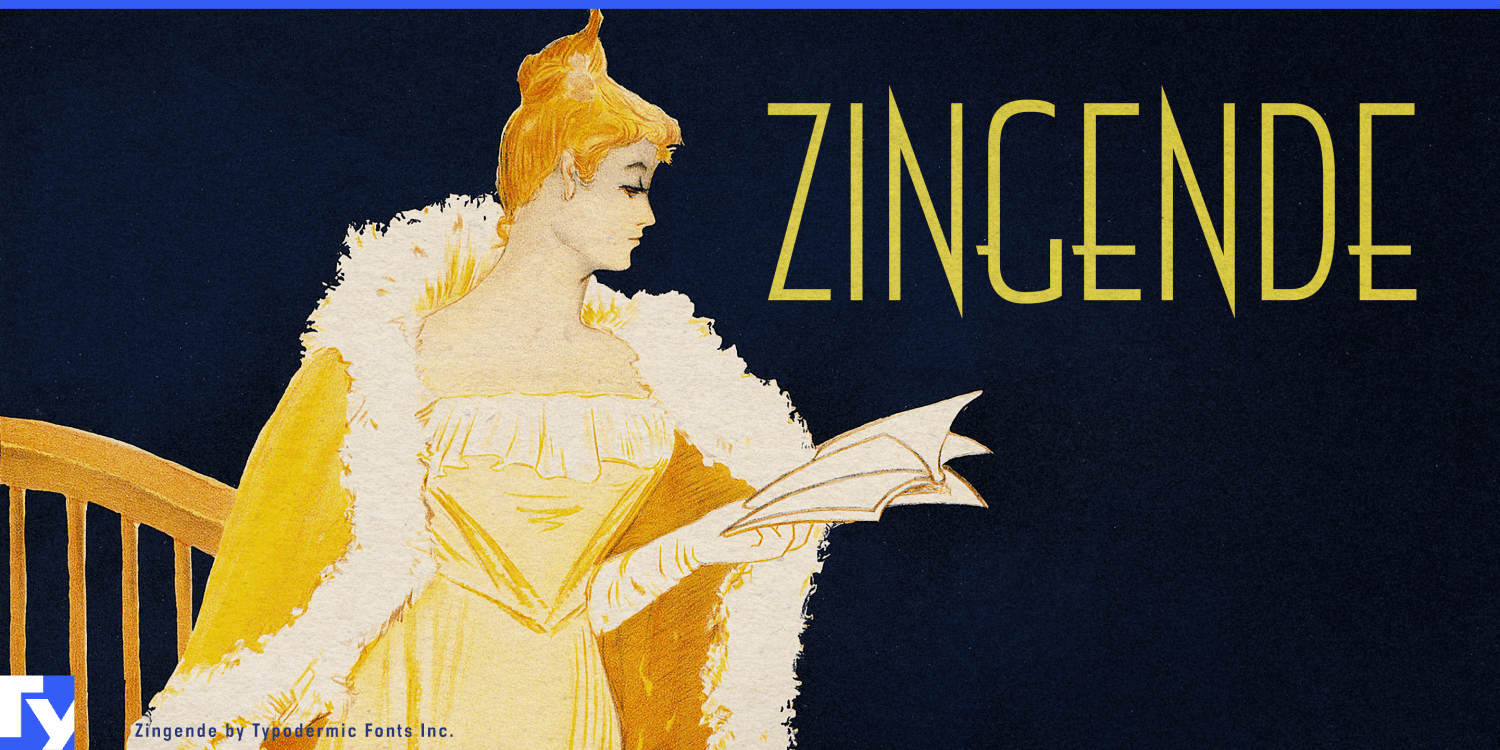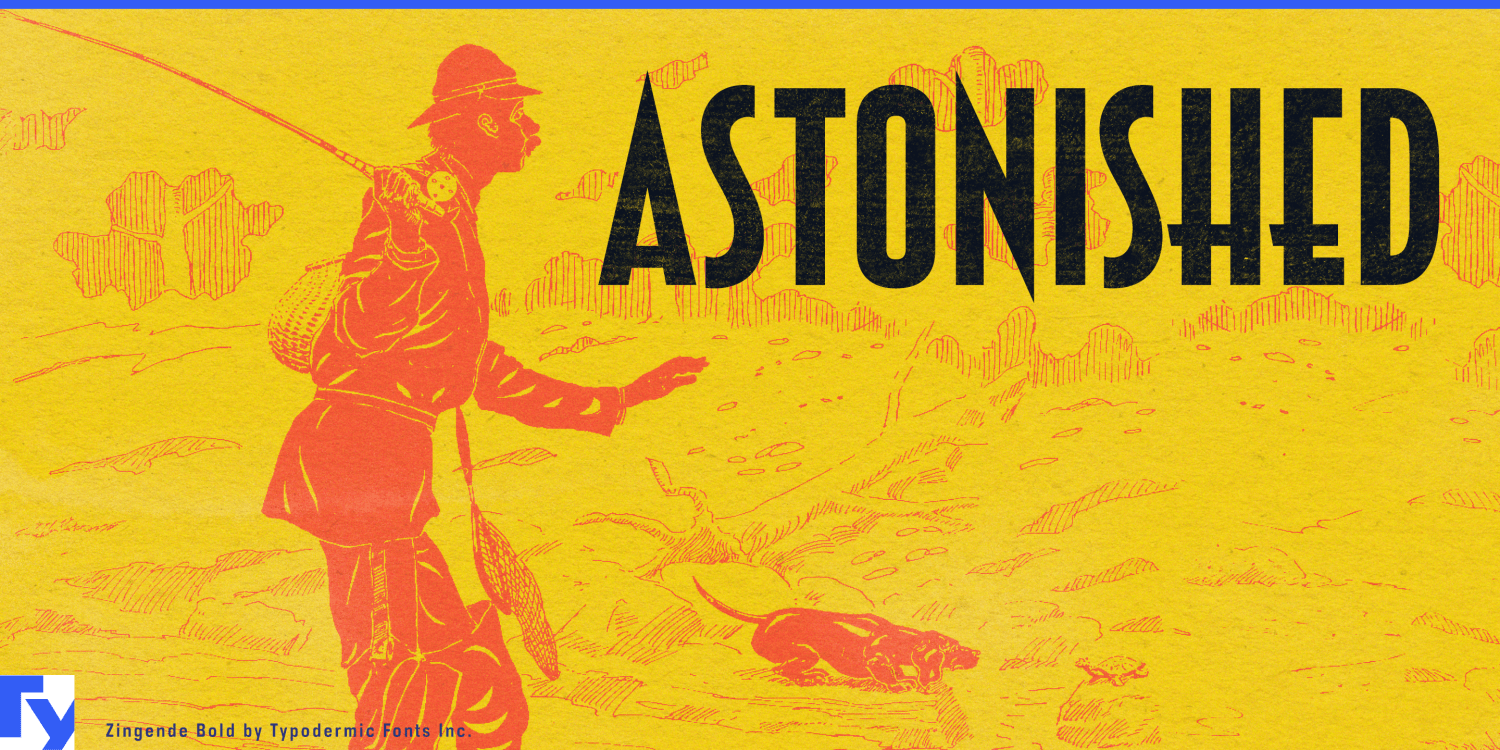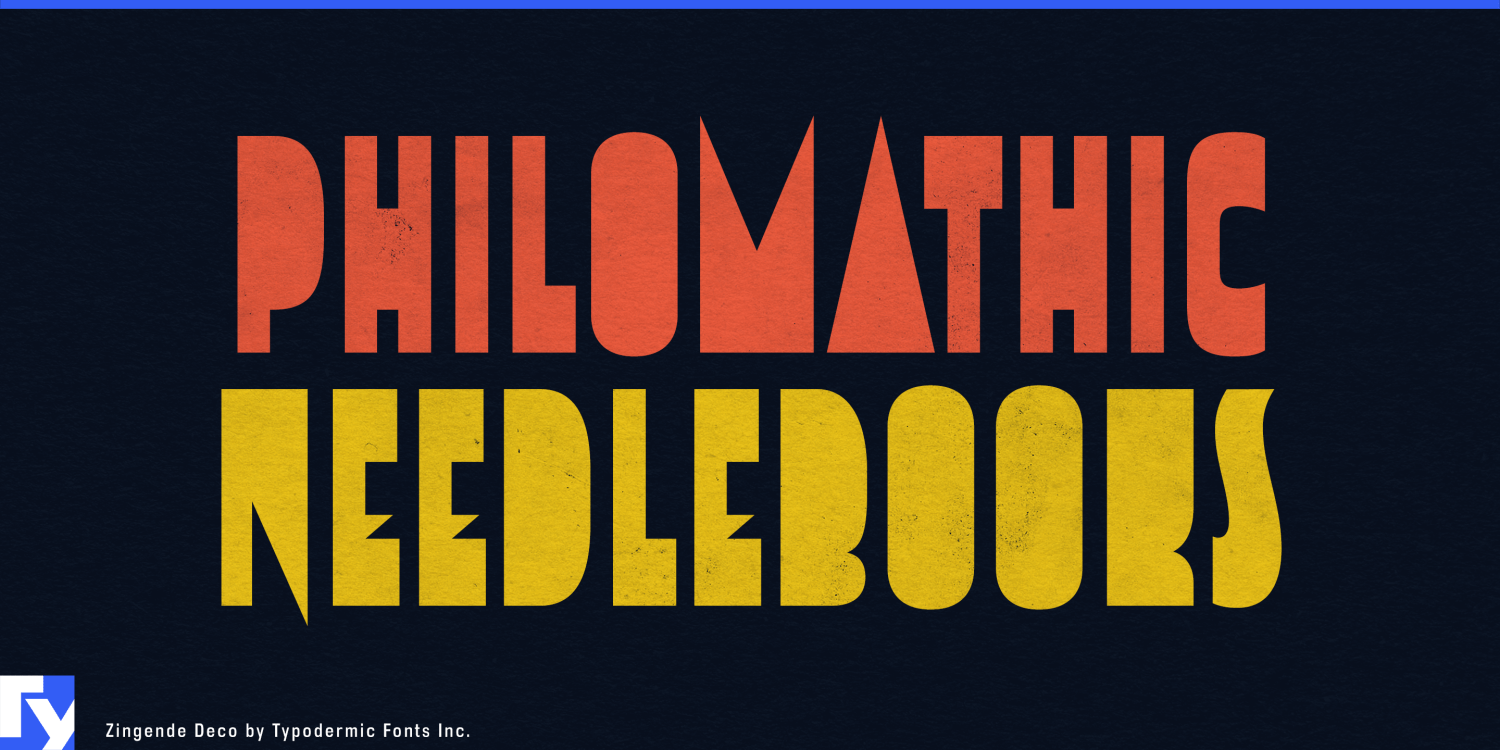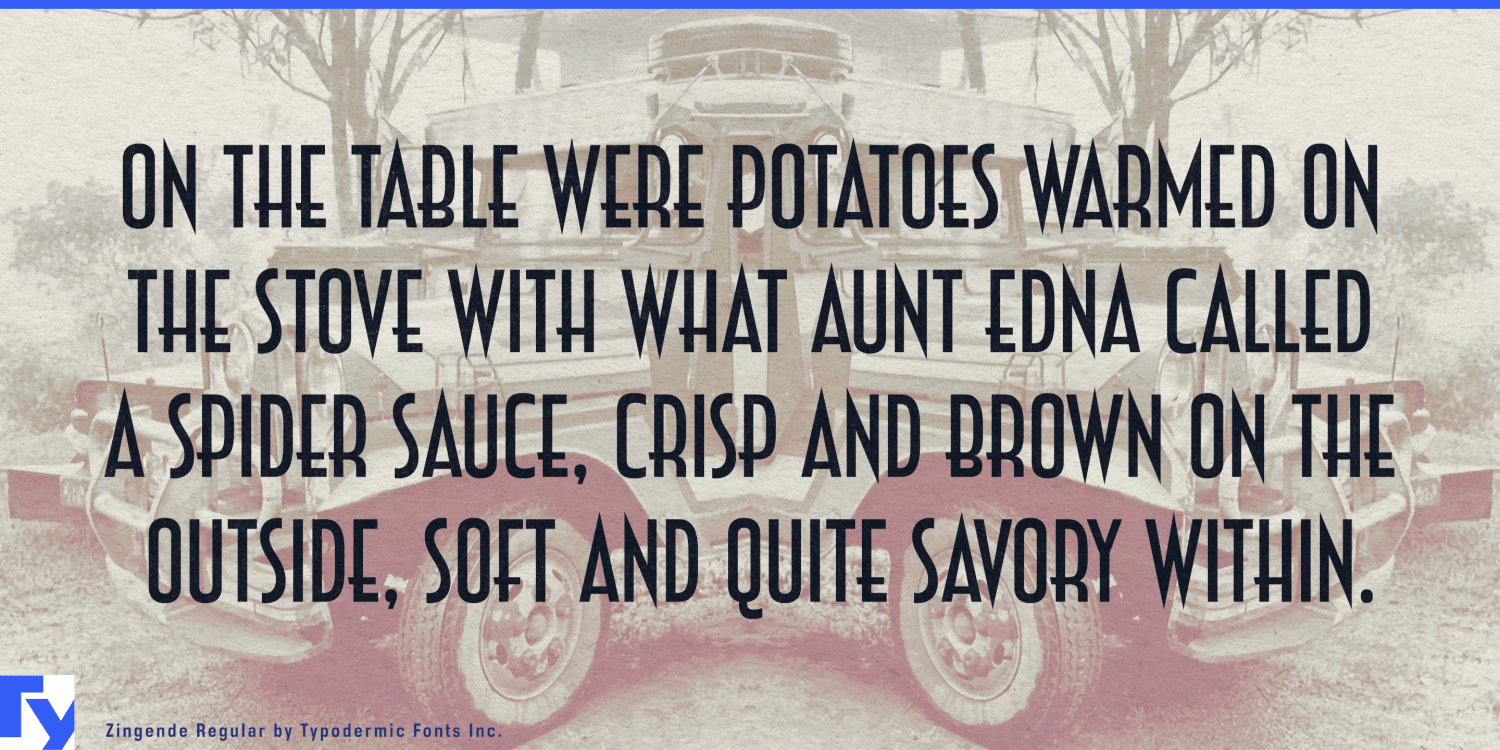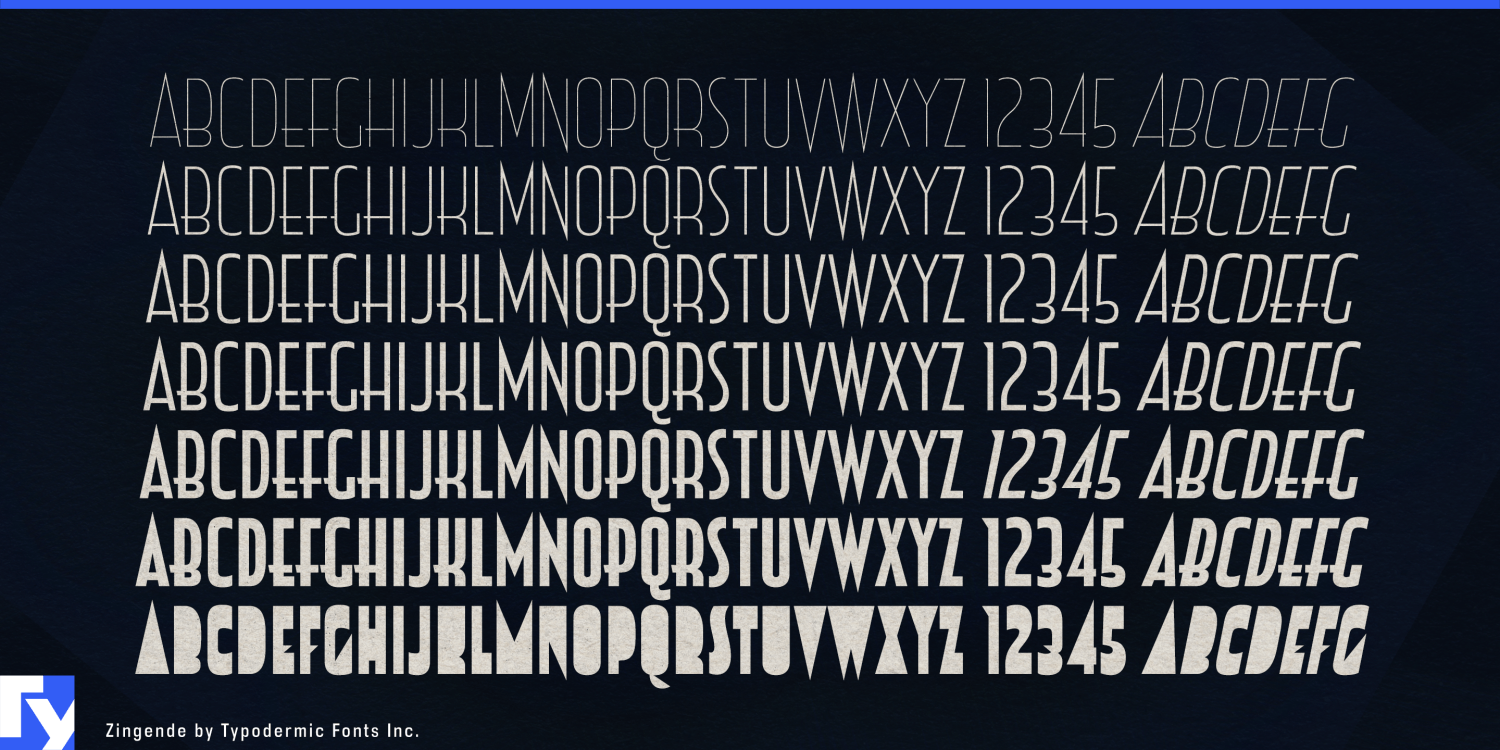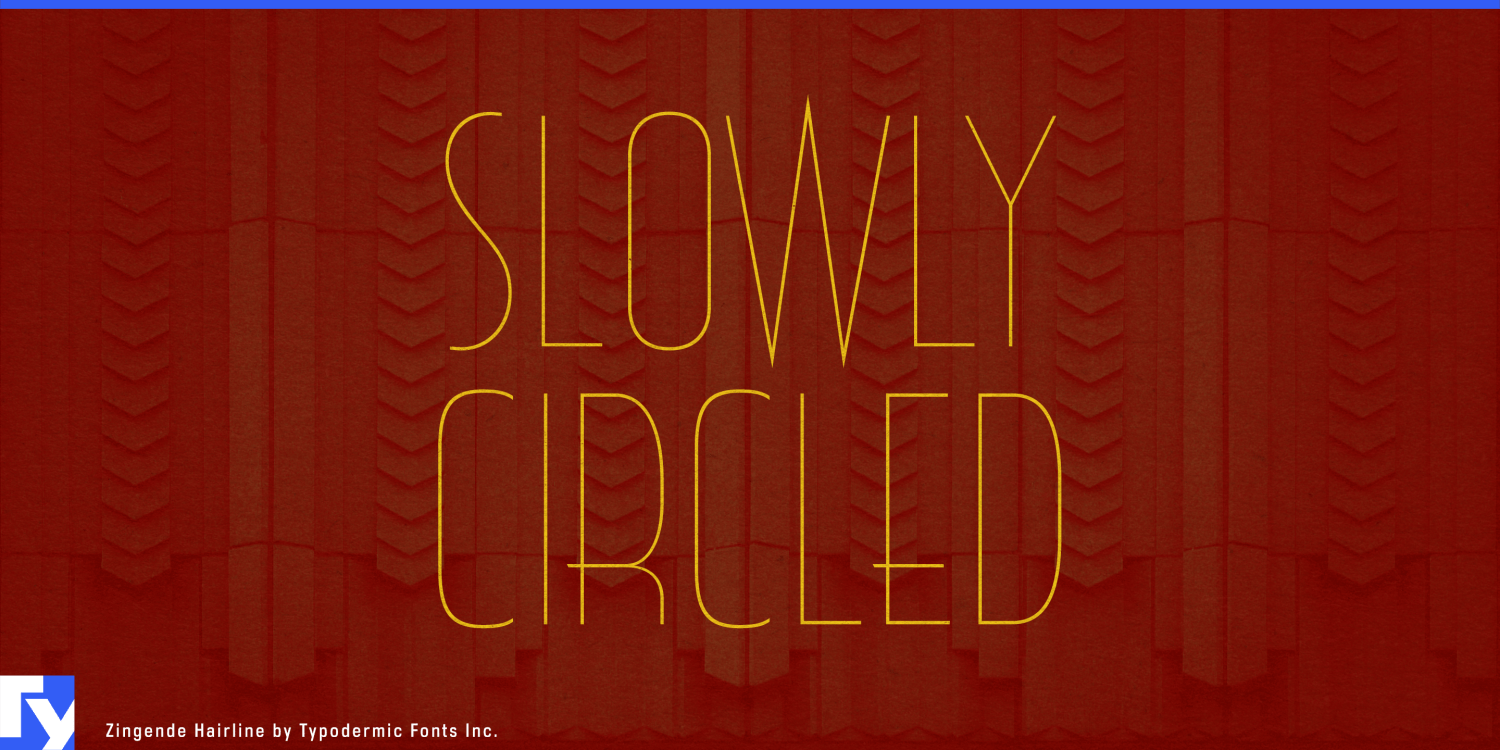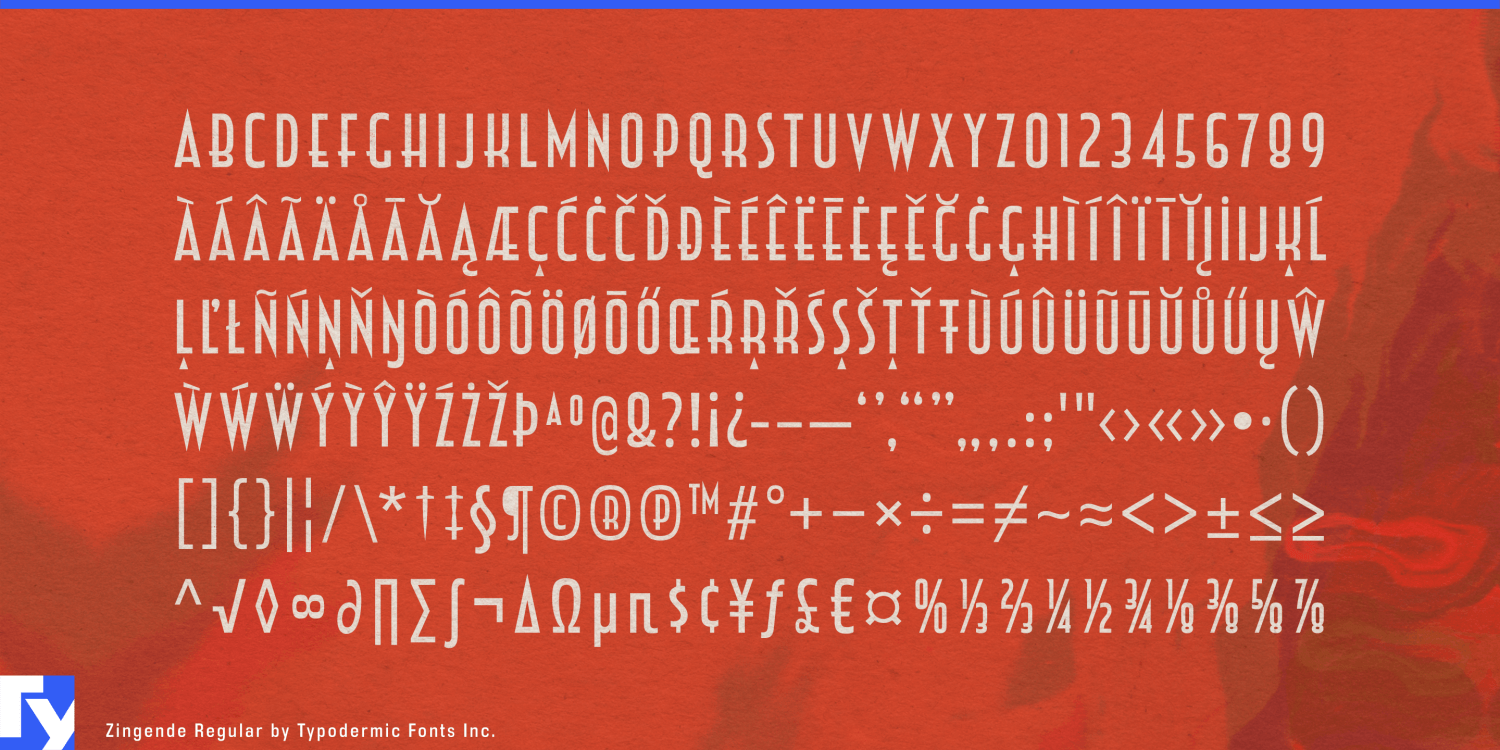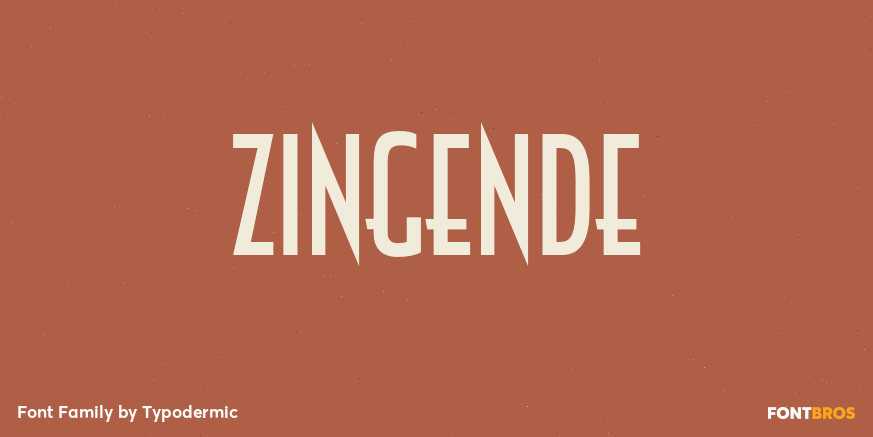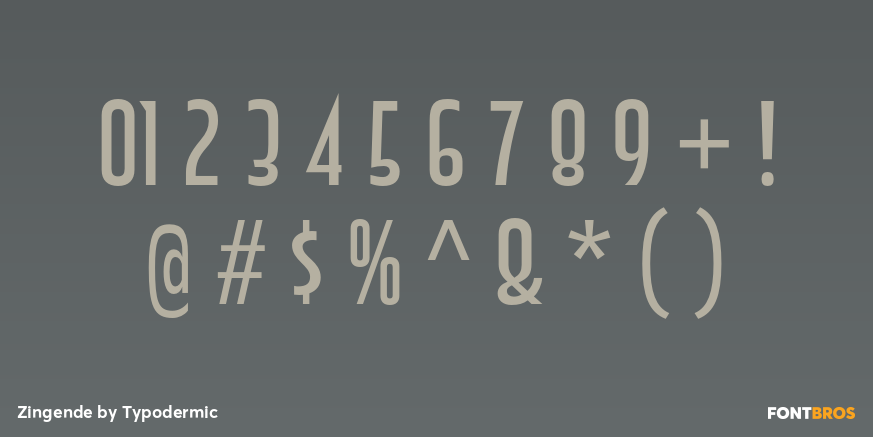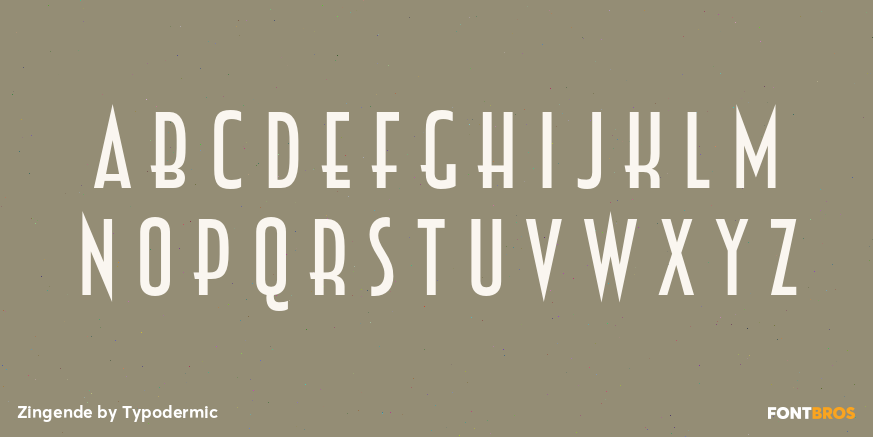
Zingende
Zingende is Art Deco for projects that cannot afford to look like Art Deco theme night.
Its tall, narrow forms retain the sharp geometry and vertical rhythm associated with 1920s and 1930s display lettering, but the strokes are essentially monolinear rather than dramatically thick and thin. That gives Zingende a period connection without the theatricality that can make conventional Deco typography feel like costume.
Restored Art Deco hotels and adaptive-reuse hospitality are a natural fit. A hotel in a 1930s tower, a cocktail bar inside a former cinema or a contemporary property built around Deco interiors needs typography for far more than a logo. Zingende can handle building names, restaurant and bar names, elevator-lobby headings, room categories, menu sections and event graphics while remaining restrained enough to coexist with original stonework, metalwork and furnishings.
Luxury rail offers a related setting. Sleeper-train identities, carriage names, route titles, dining-car graphics, menus, onboard publications and campaign headlines can reference the visual language of interwar travel without becoming replicas of old railway posters. The oblique styles add movement while preserving the same narrow construction.
Art Deco residential and commercial property creates another strong application. Restored towers, former banks converted to residences and new developments that borrow stepped forms, metalwork and geometric ornament can use Zingende for property names, amenity names, sales-gallery graphics and large-scale architectural signage. Its vertical emphasis works particularly well when the architecture itself is tall, narrow and rhythmically divided.
Museums and cultural institutions can use Zingende for exhibitions concerned with Art Deco, interwar fashion, jewelry, ocean liners, architecture, industrial design and decorative arts. Exhibition titles, gallery sections, dates and catalogue covers can acknowledge the period without competing with objects that may already be highly ornamental.
The Deco style pushes the construction further by filling the counters and turning the letters into bold geometric silhouettes. It works best as an accent for feature-wall titles, campaign key art and dramatic venue names.
Zingende keeps the architecture of Art Deco while stripping away much of the stagecraft.